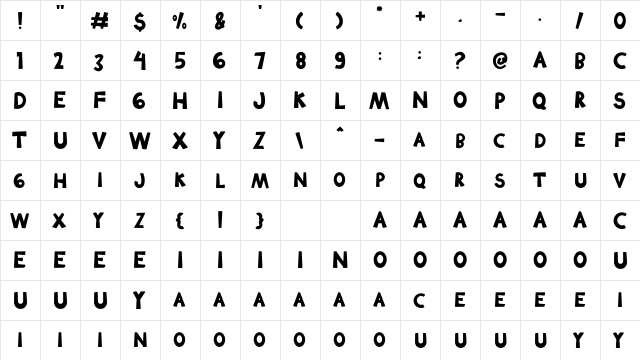
Helko Regular
Design Context for Helko Typeface
Helko is a composed and adaptable typeface that performs quietly and consistently across a wide range of design contexts.